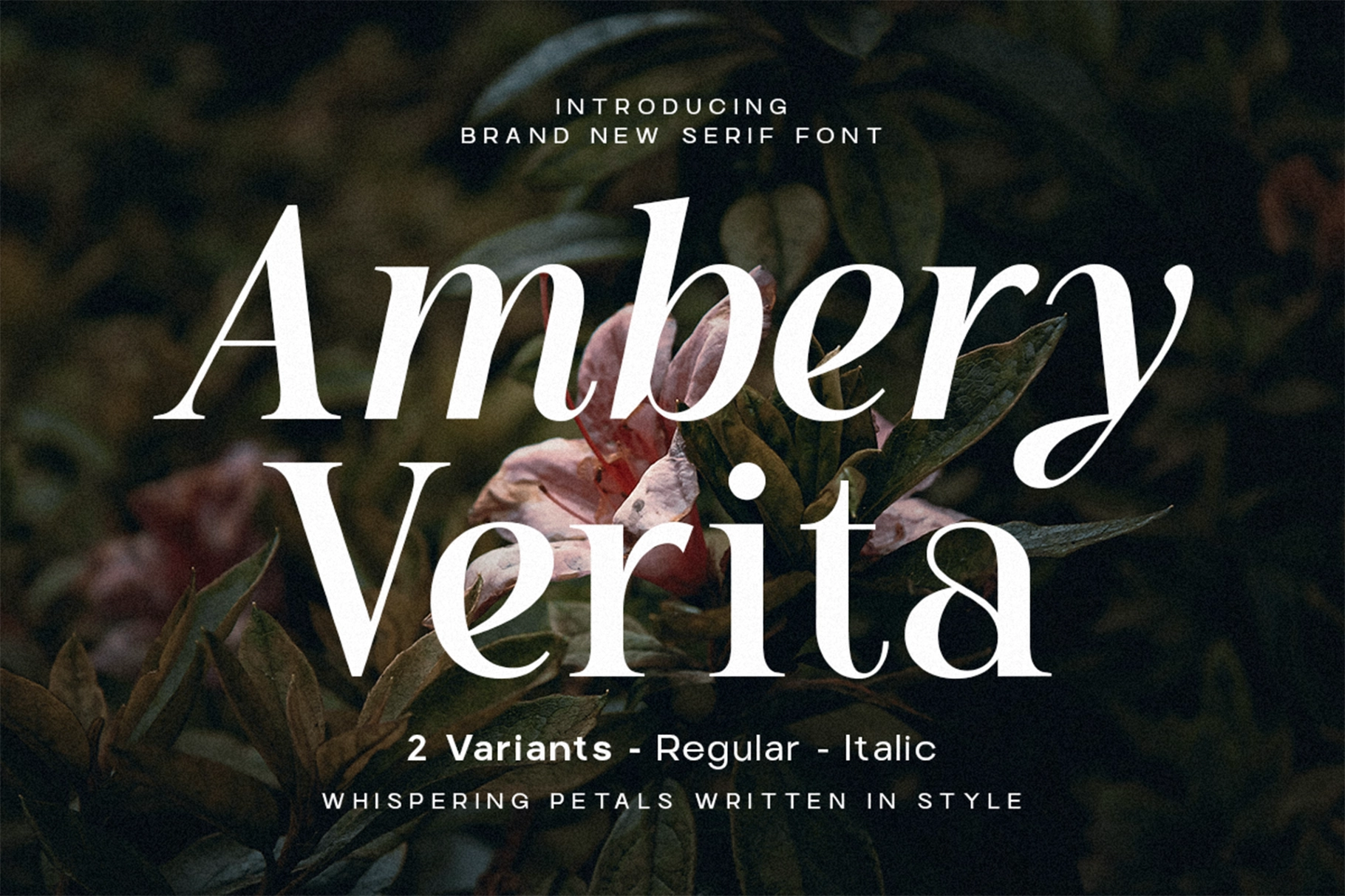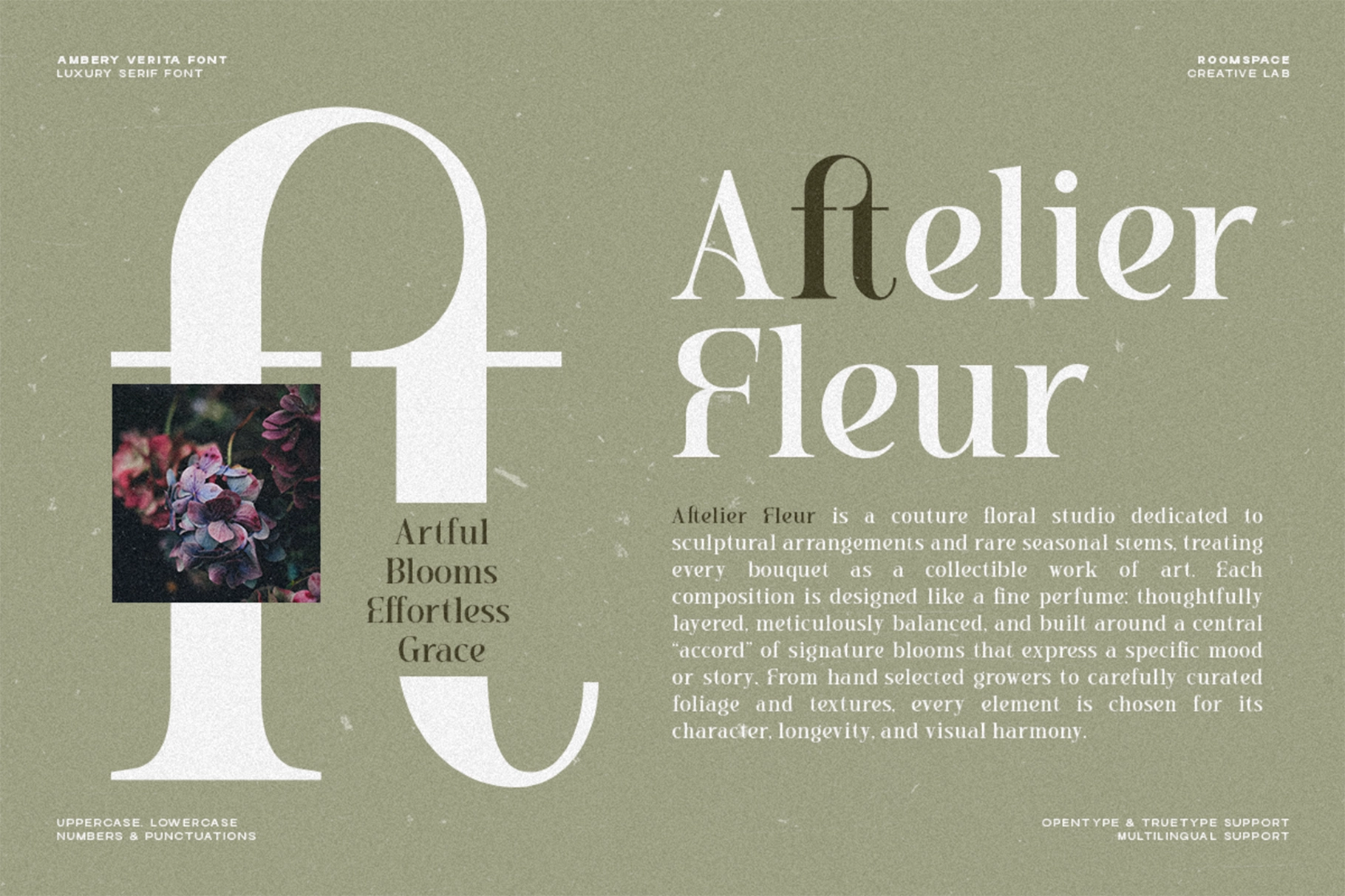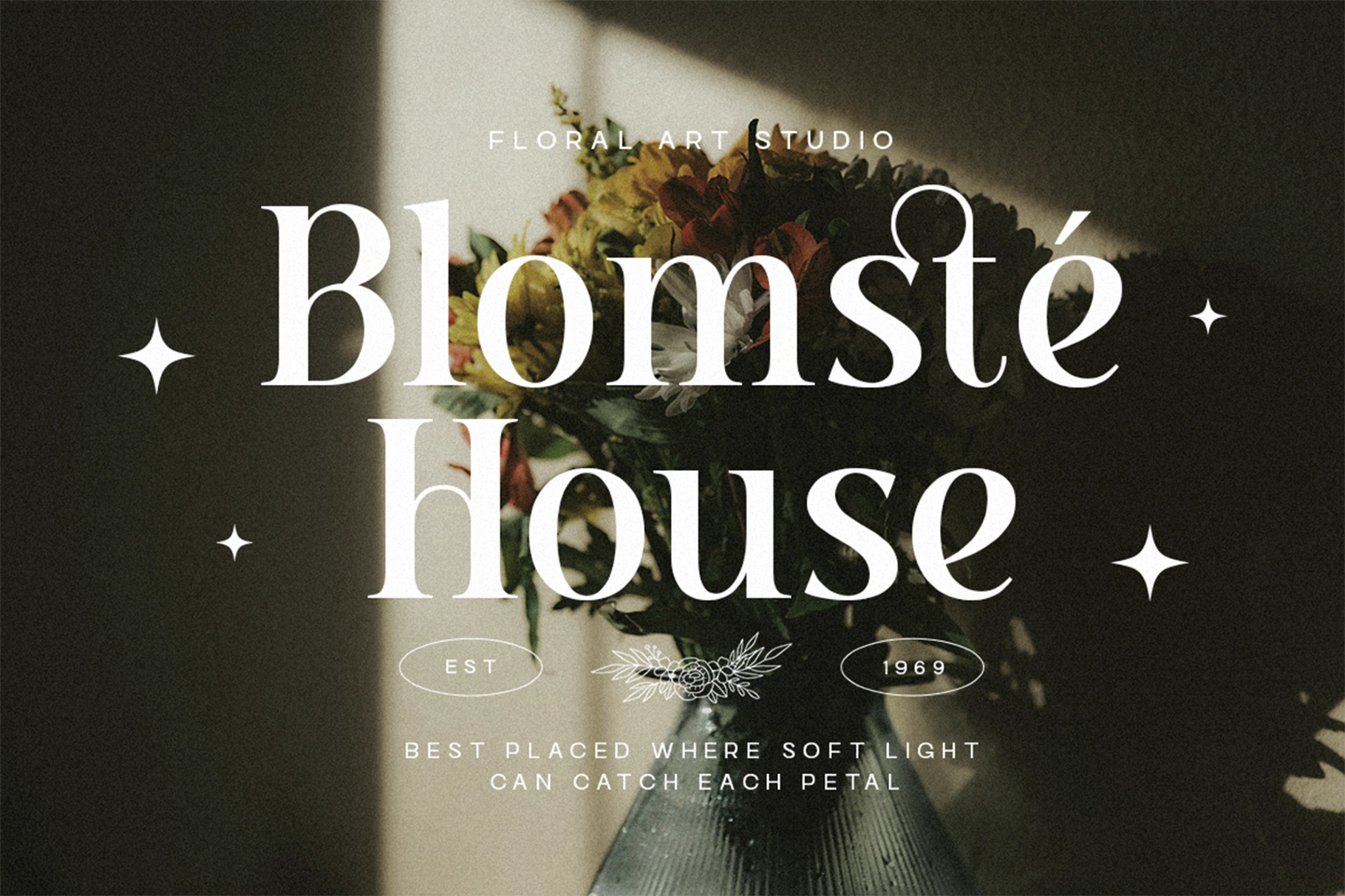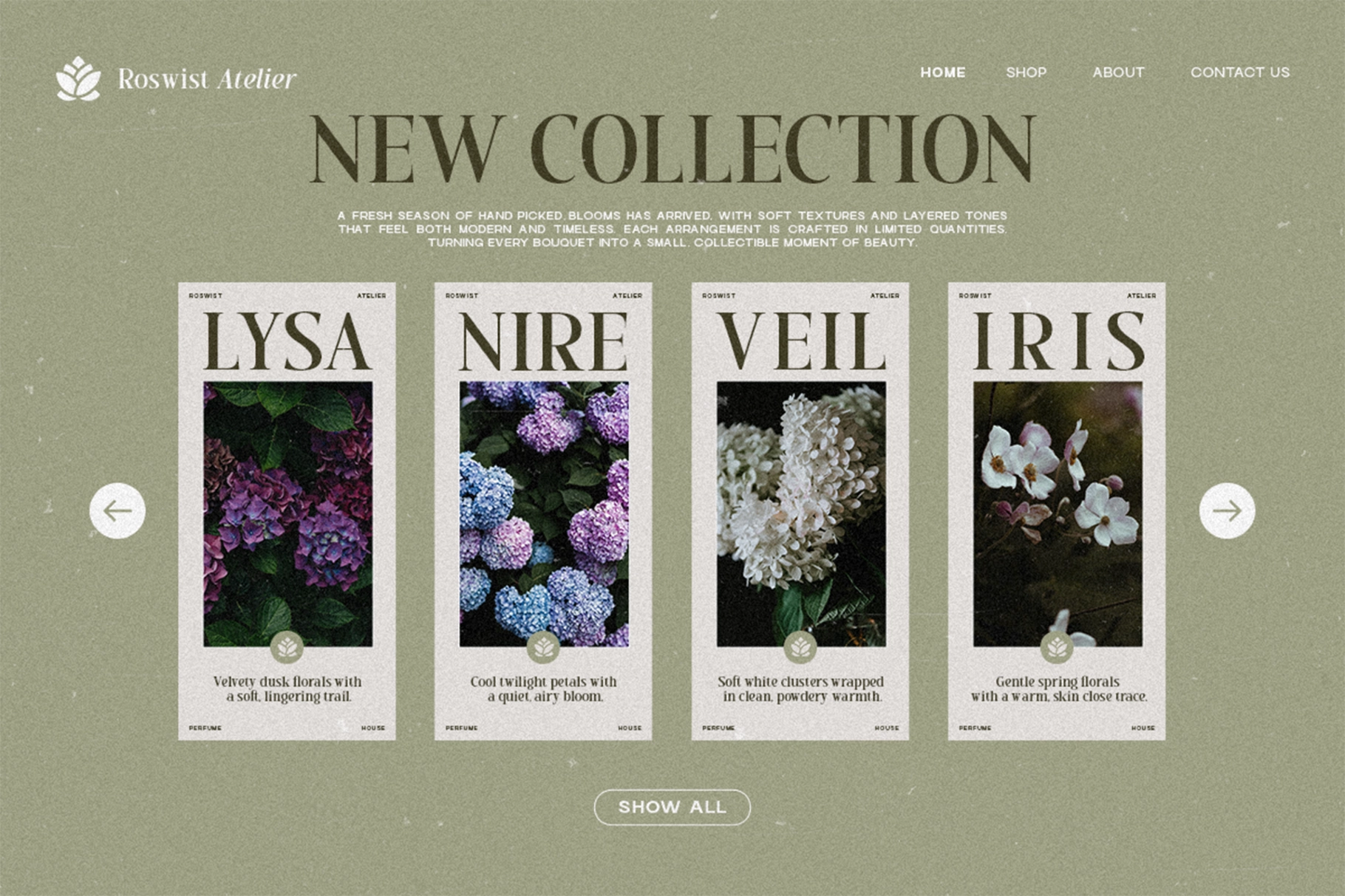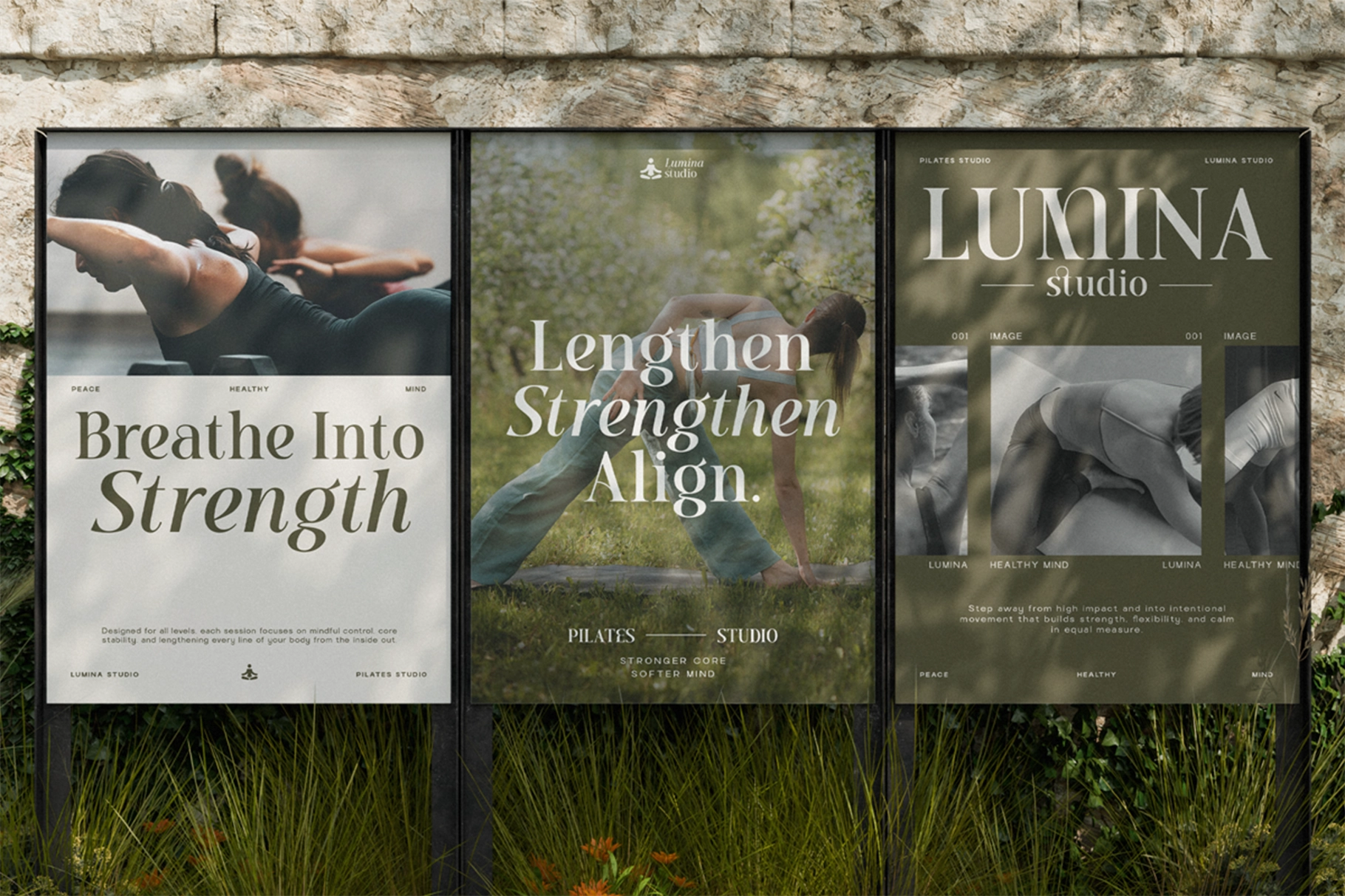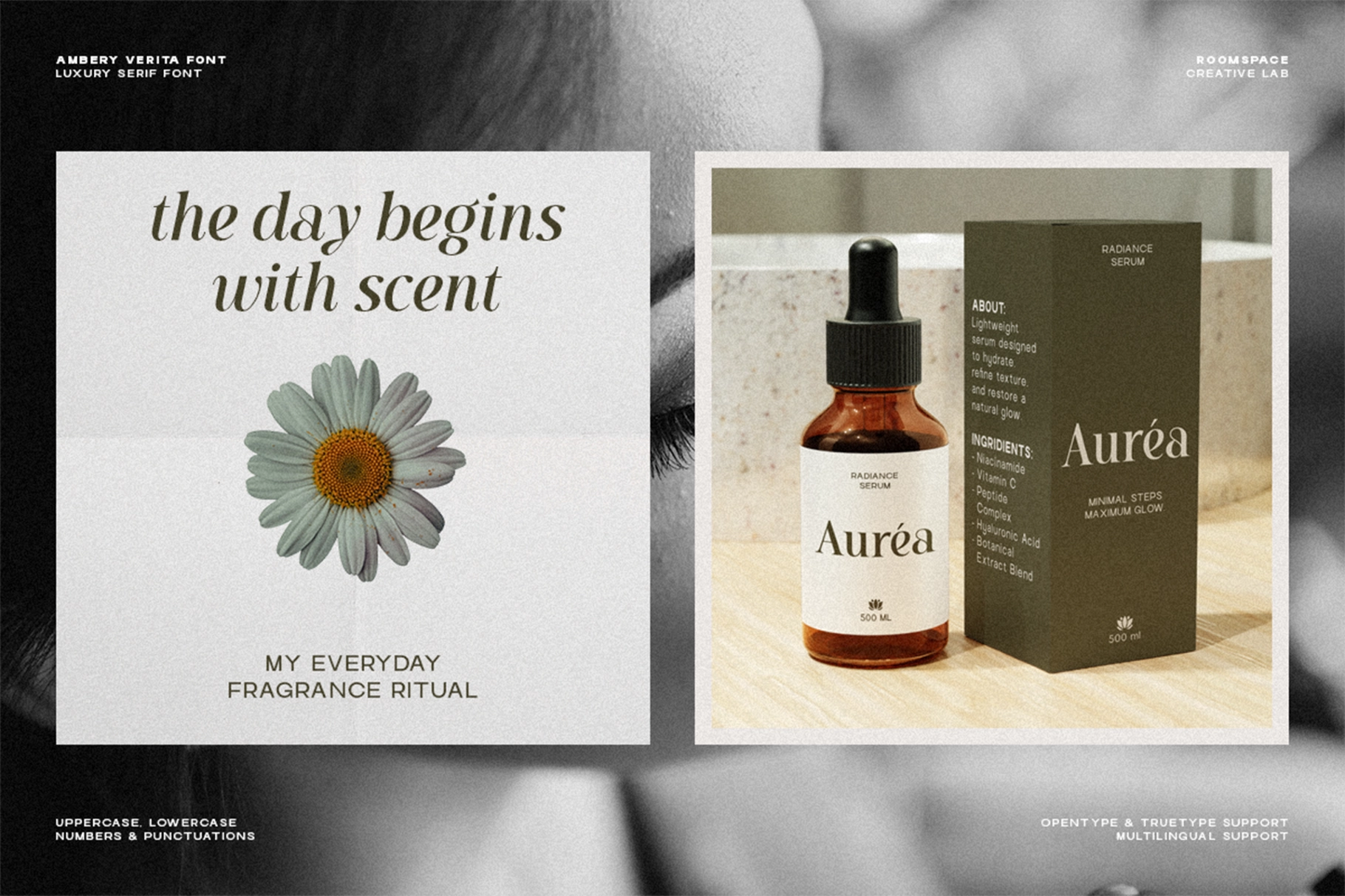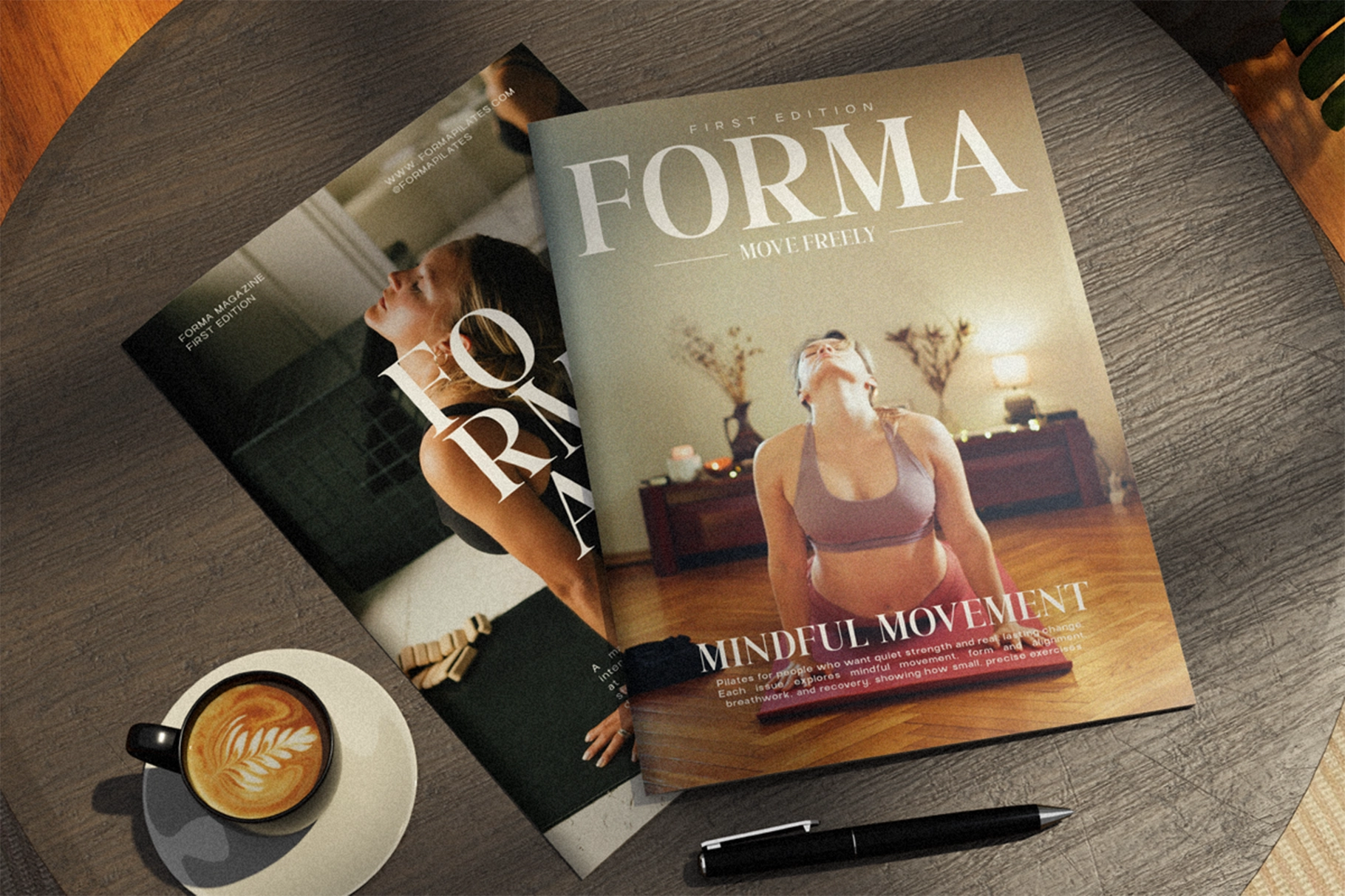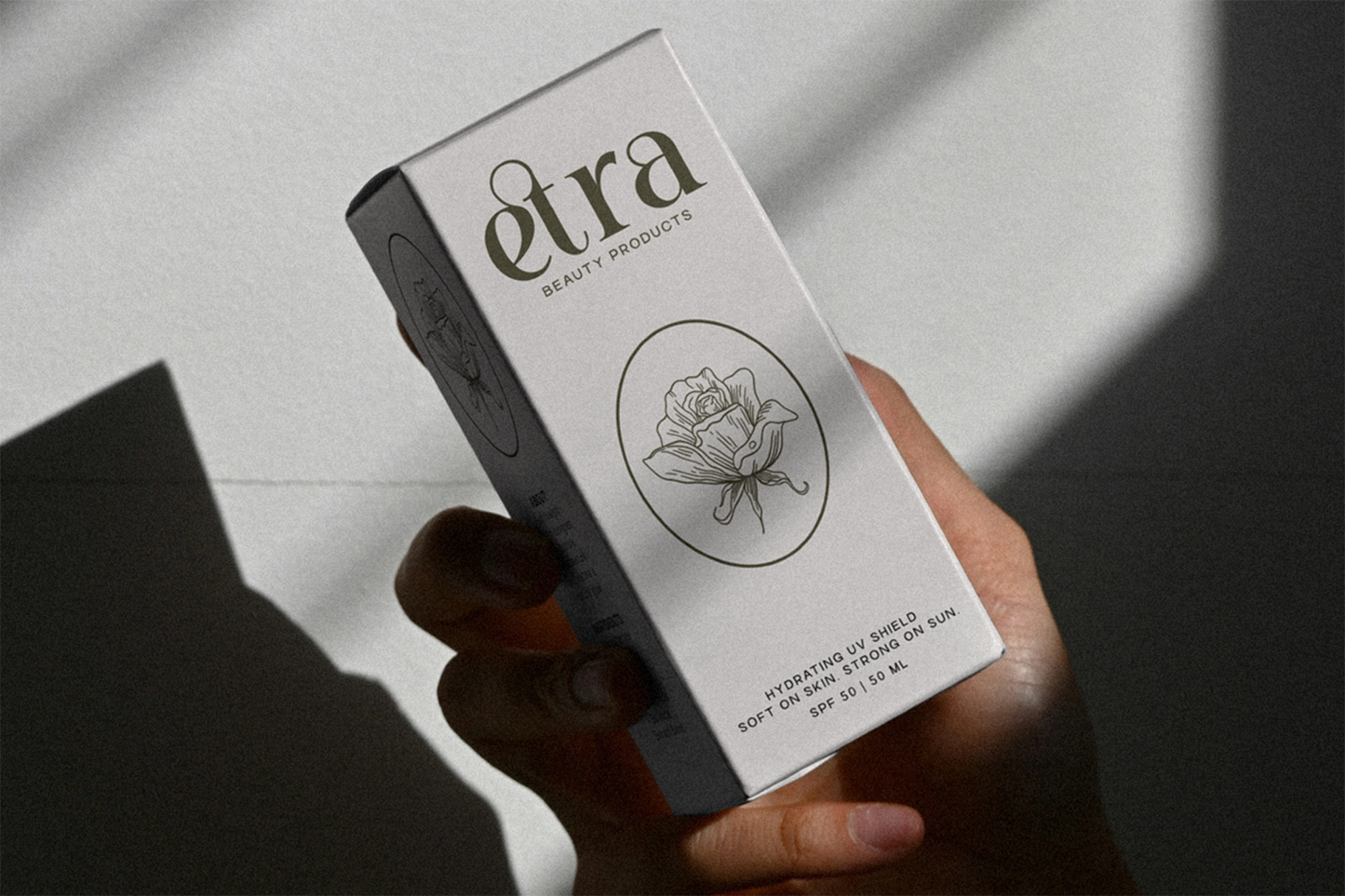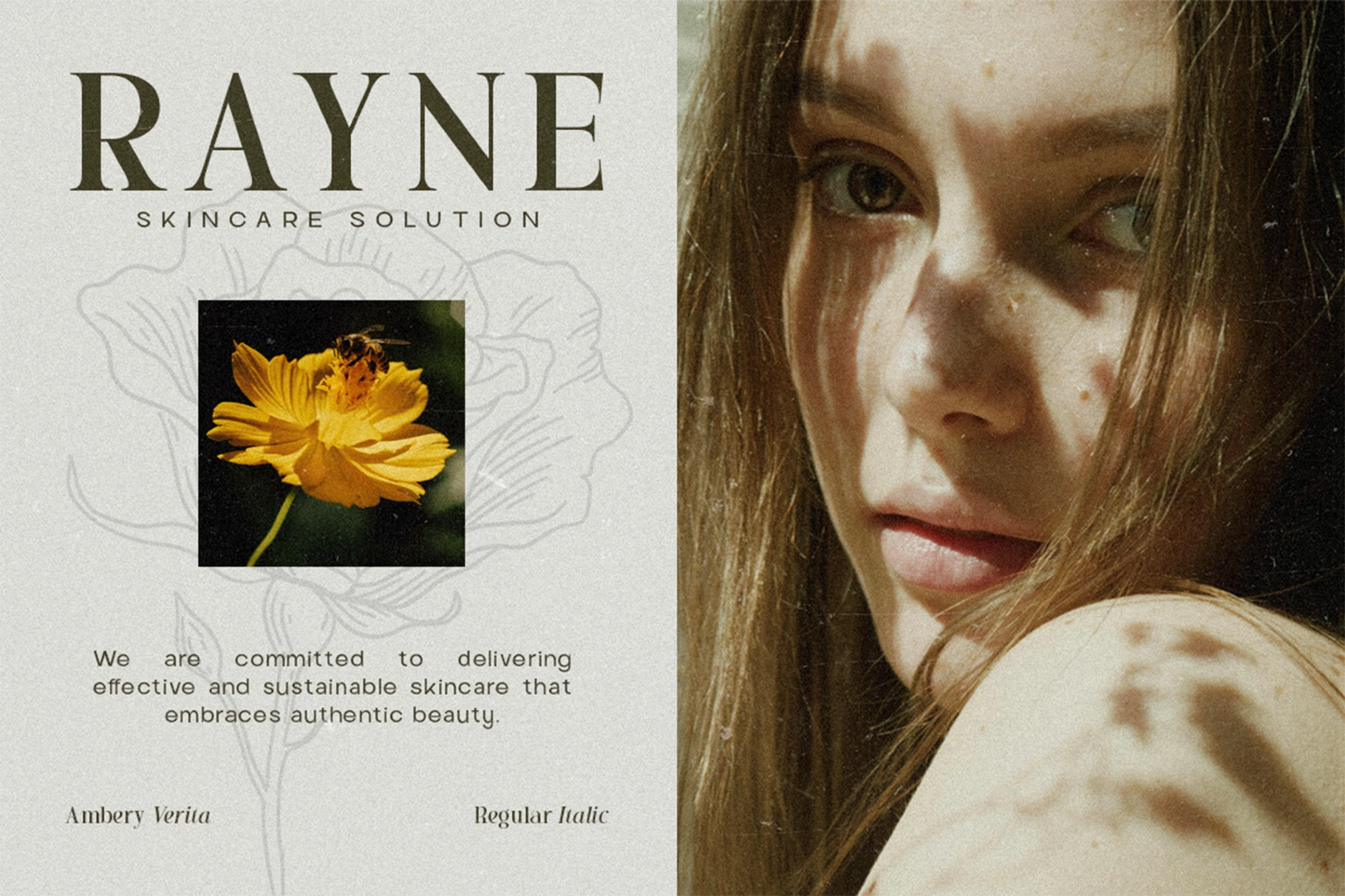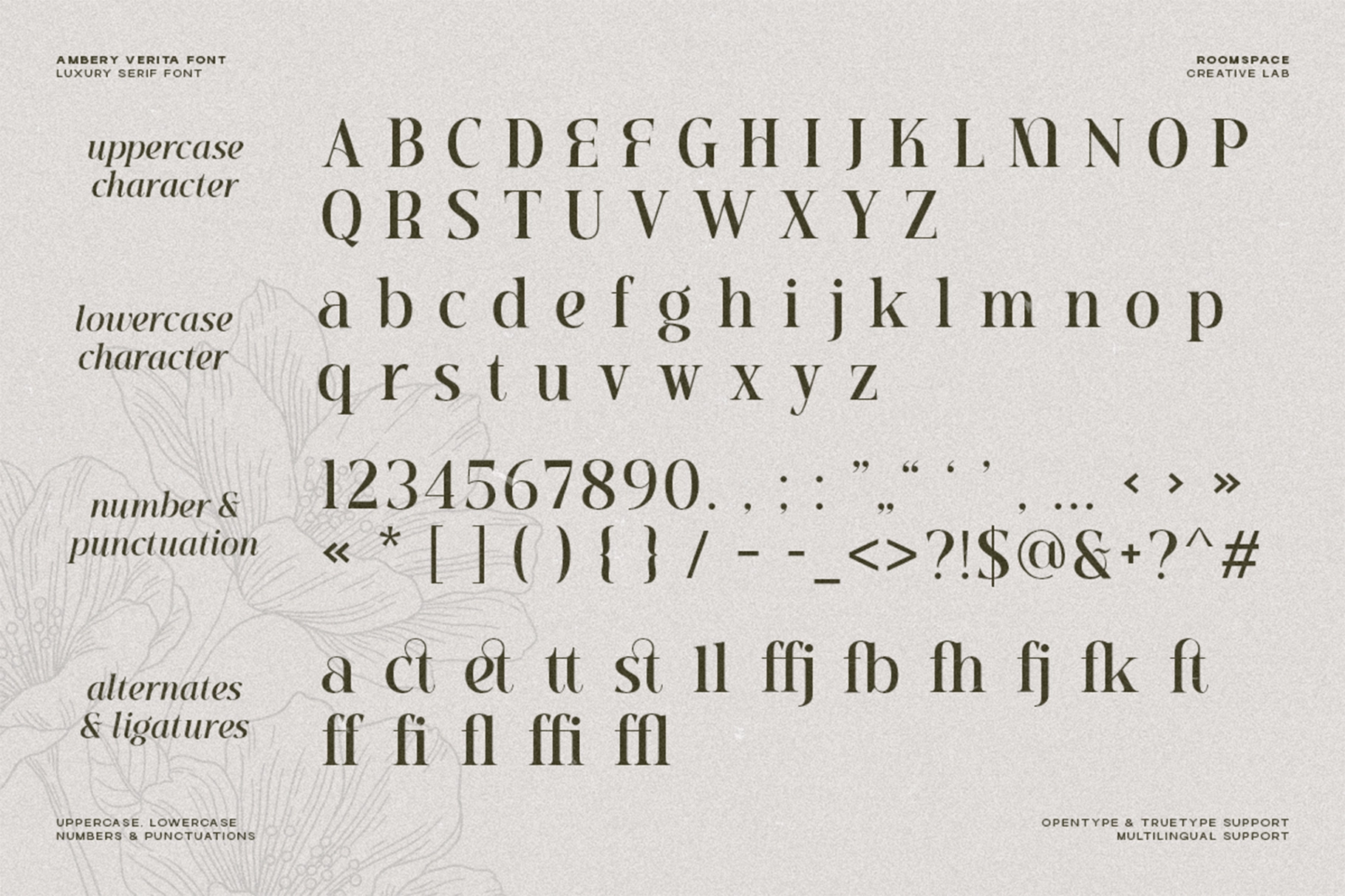
Ambery Verita – Elegant Modern Serif Font
A high-contrast serif with sharp poise, graceful curves, and a polished editorial rhythm. The elegant letterforms pair crisp vertical stress with soft italic movement, giving each layout a romantic, art-directed character without trying too hard.
Ambery is made for luxury branding, wedding stationery, magazine covers, skincare packaging, perfume labels, boutique logos, quote graphics, social media campaigns, invitations, lookbooks, art prints, and refined website headers. Regular brings structure and calm authority, while Italic adds a slower, more lyrical accent for names, captions, and display typography.
• 2 styles: Regular, Italic
• Uppercase & lowercase
• Alternates & ligatures